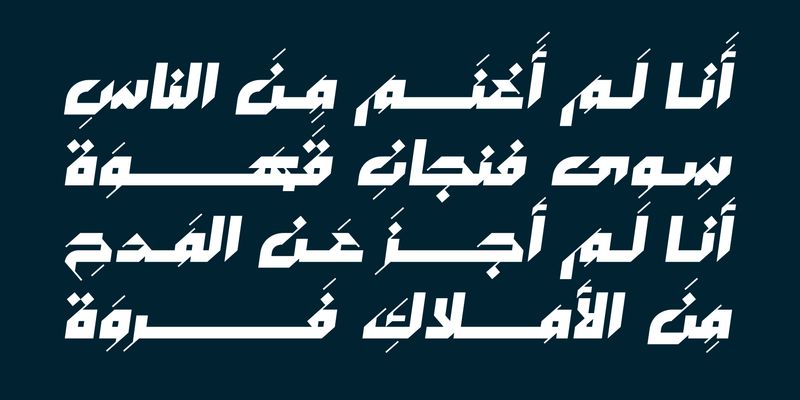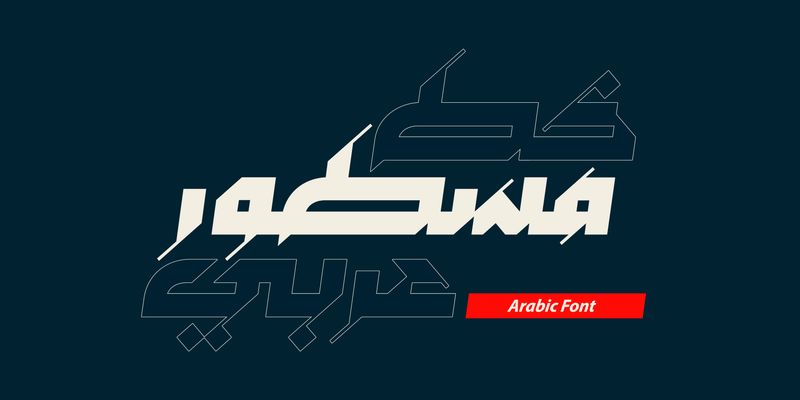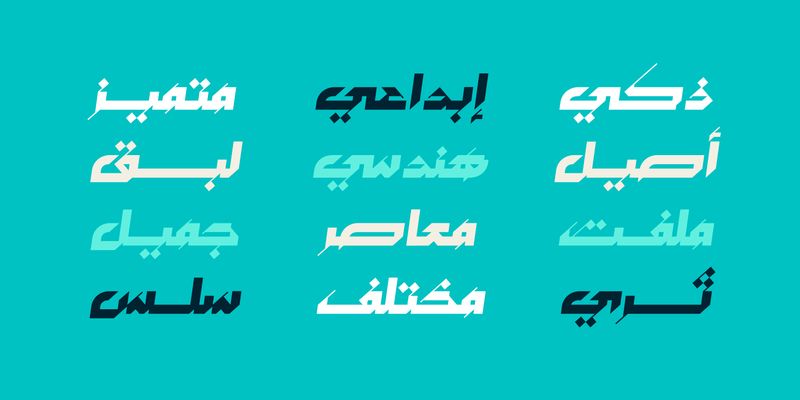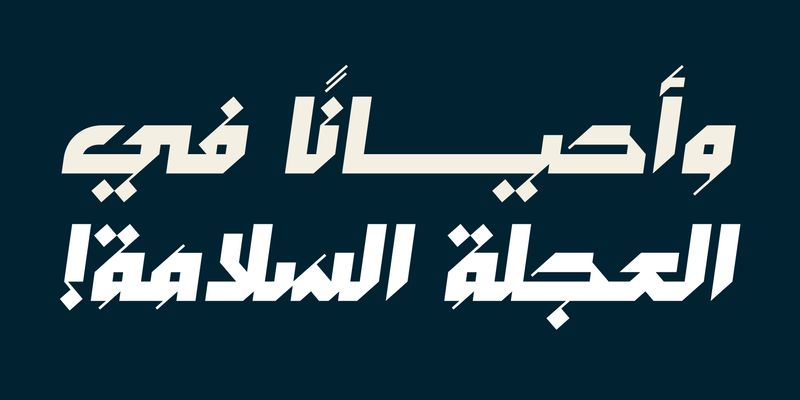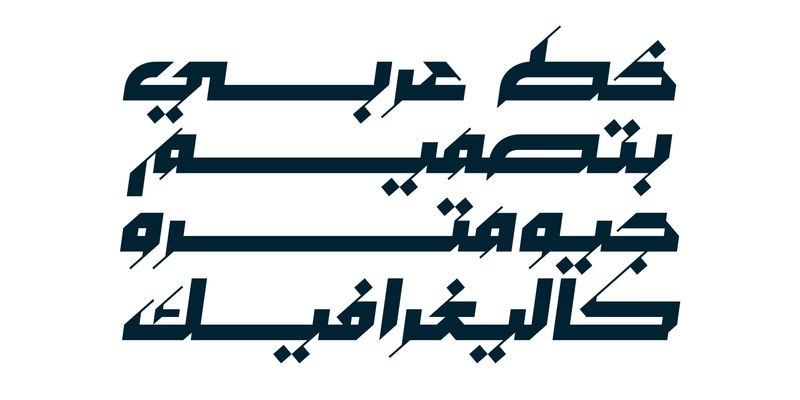
Mustoor (Arabic for “Lined”) is a bold Arabic display typeface that brings calligraphic elegance into a clean, modern geometric system. Designed to stand out, its striking letterforms deliver a confident visual voice perfect for brands and creatives seeking a contemporary Arabic aesthetic.
Available in Black and Oblique, Mustoor adds impact to headlines, editorial layouts, digital experiences, and promotional design. With full support for Windows, macOS, and mobile environments, it integrates seamlessly into any modern workflow.
Mostafa El Abasiry is an independent Arabic type designer whose work has helped define a new era of expressive Arabic typography. Since 2009, he has built a distinctive and influential catalogue of Arabic typefaces known for their bold geometry, modern aesthetics, and emotionally resonant visual character. His designs are widely recognized for merging the structural clarity of geometric construction with the creative freedom of contemporary display typography.
Mostafa’s approach is rooted in a balance of mathematical precision and artistic intuition. Many of his typefaces begin as geometric studies - circles, arcs, grids, and modular systems, before evolving into expressive display families with strong visual identity. Other designs explore texture, layering, and experimental forms, expanding the expressive potential of Arabic letterforms in digital environments.
In 2017, Mostafa introduced Tajreed, the first Arabic OpenType‑SVG color font ever created. This pioneering work brought textured, multi‑layered Arabic typography into mainstream digital use and opened a new category of expressive Arabic tools for designers and everyday creators. Tajreed later grew into a broader ecosystem of textured and experimental families that influenced how Arabic typography appears in mobile apps, creative platforms, and user‑generated content.
Mostafa’s typefaces have been used by a wide range of clients, from global brands such as Apple TV+ and Turkish Airlines to millions of everyday creators. Despite this reach, his design process remains deeply personal: every typeface begins with hand‑drawn sketches, geometric construction, and a search for a unique visual voice rooted in Arab visual culture.
Today, Mostafa continues to expand his catalogue with new display families, textured experiments, and modern interpretations of Arabic typographic heritage. His work aims to give designers and creators expressive tools that did not exist before - tools that make Arabic typography feel bold, modern, and alive.